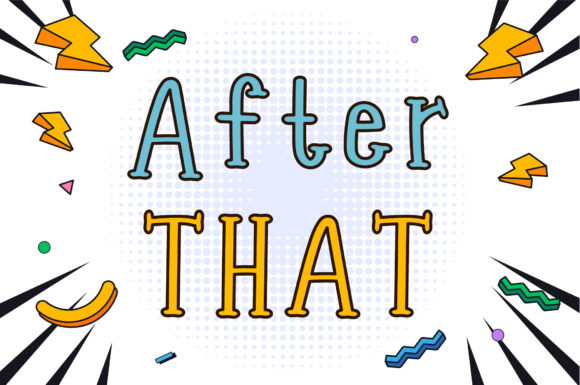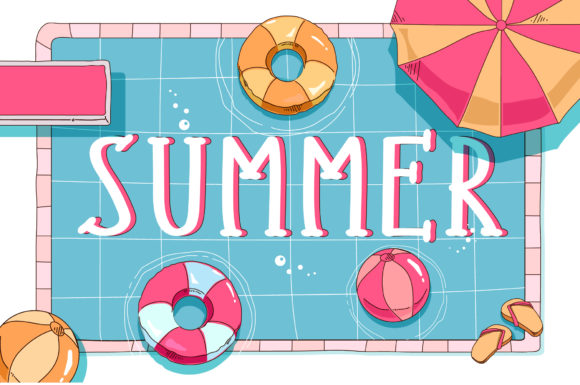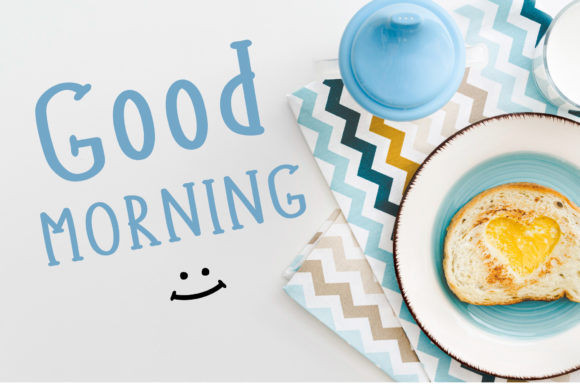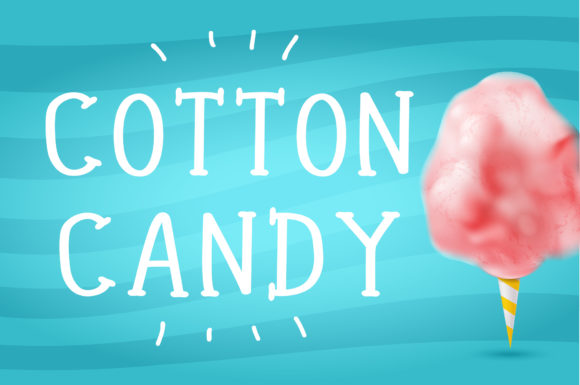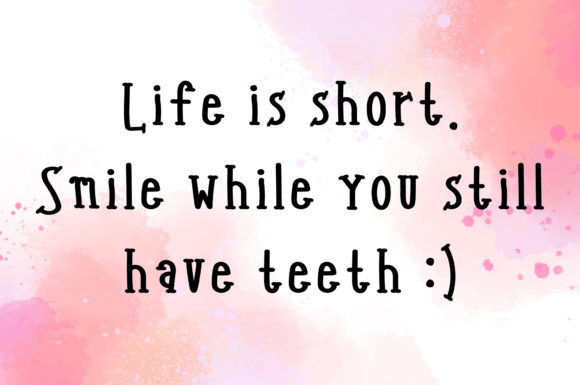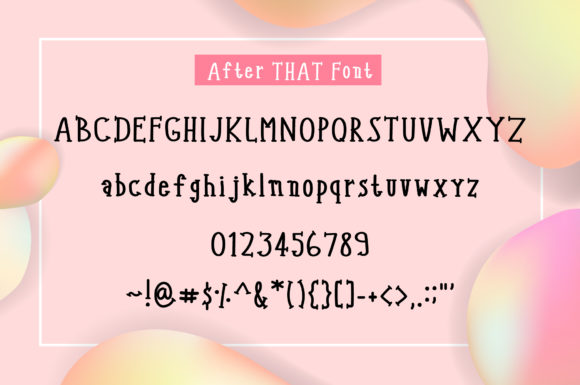
After That Font
About After That Font
After That feels equally charming and friendly. This enchanting handwritten font will turn any creative idea into a true standout. It is perfect for logos, branding, headings, wedding designs, invitations, signatures, labels, and much more!